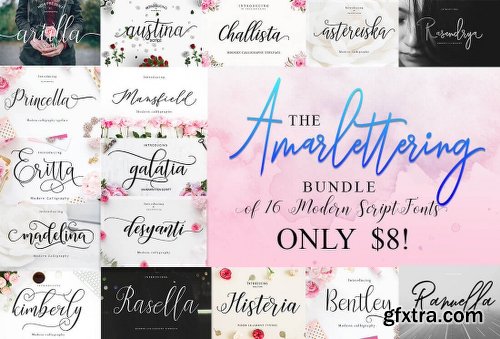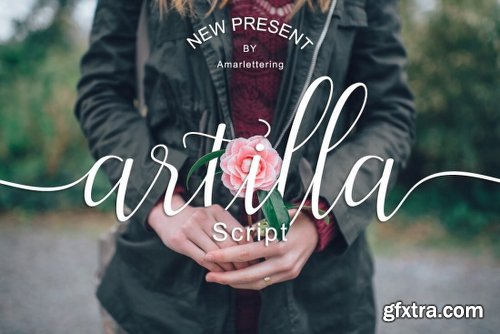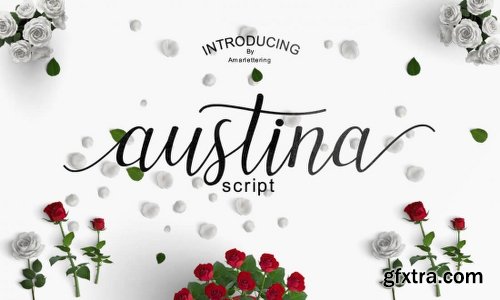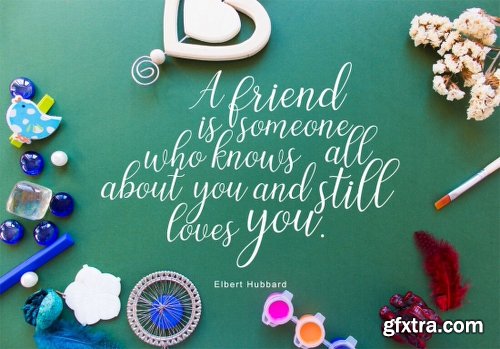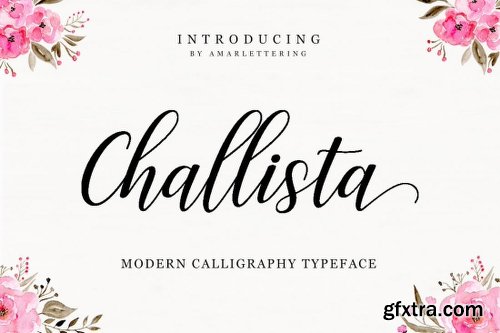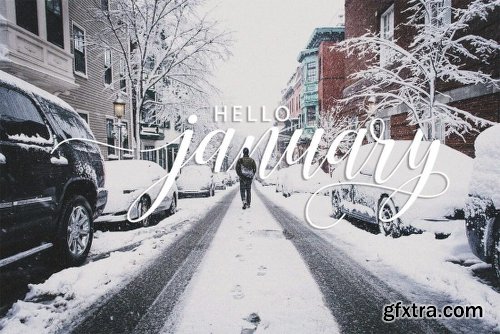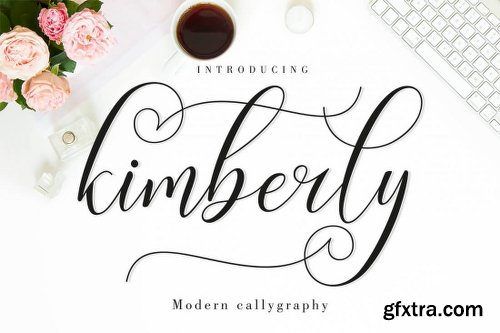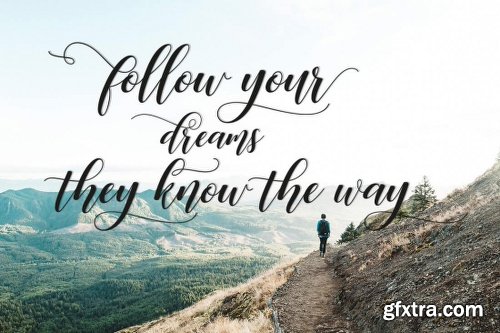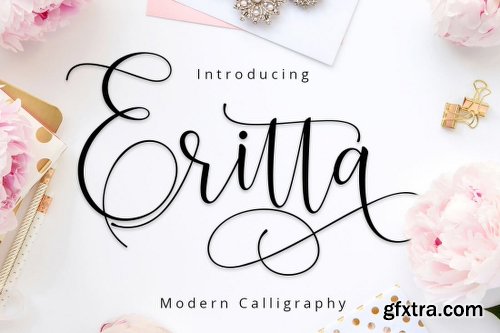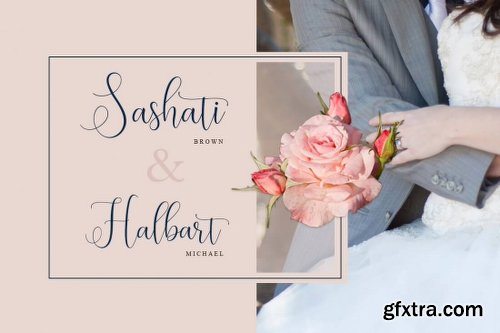
The Amarlettering Bundle of 16 Modern Script Fonts
Your typeface toolbox is about to get an elegant facelift. The Amartelling Bundle is flowing with fabulous fonts. You'll score 16 magnificent, hand-drawn script fonts that are the perfect answer to a variety of projects from wedding invitations to T-shirt designs. With plenty of OpenType features and multiple languages, there's plenty of flexibility to play with too.
Gorgeous, handmade modern script fonts.
A beautiful choice for so many printed projects - invitations, greeting cards, posters, quotes, business cards, T-shirts, branding and more.